The 80s was an interesting time for design. It was filled with pixels, neon, chrome, sharp edges, blocks, and totally tubular styles. In this article, we look at 25 fonts sure to help you capture that iconic 1980βs aesthetic.
1. Bayshore
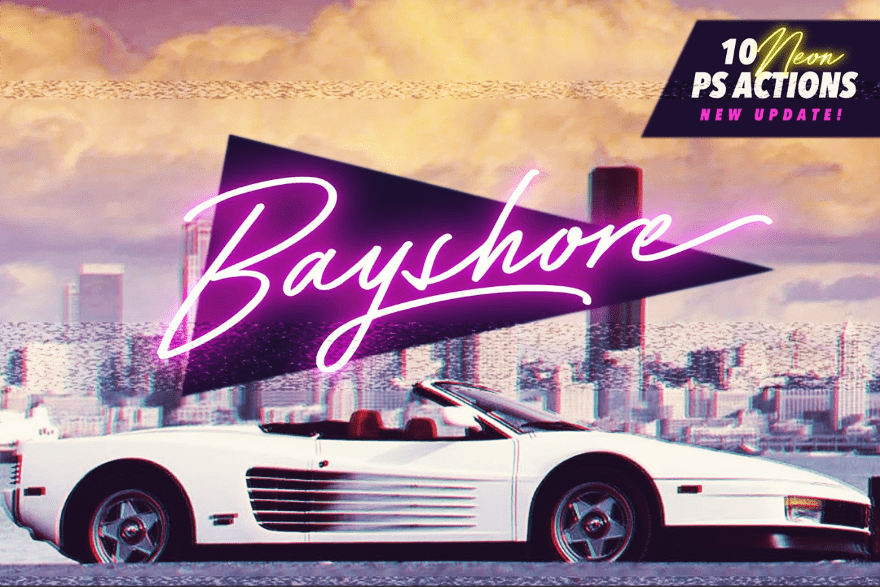
This font with its neon colors makes me want to go a few days without shaving and drive my Ferrari down the streets of Miami wearing my rad blazer with cool drums blasting. Itβs a hand-drawn font thatβs ideal for logos and products. It also includes a few Photoshop actions.
2. Outrunner
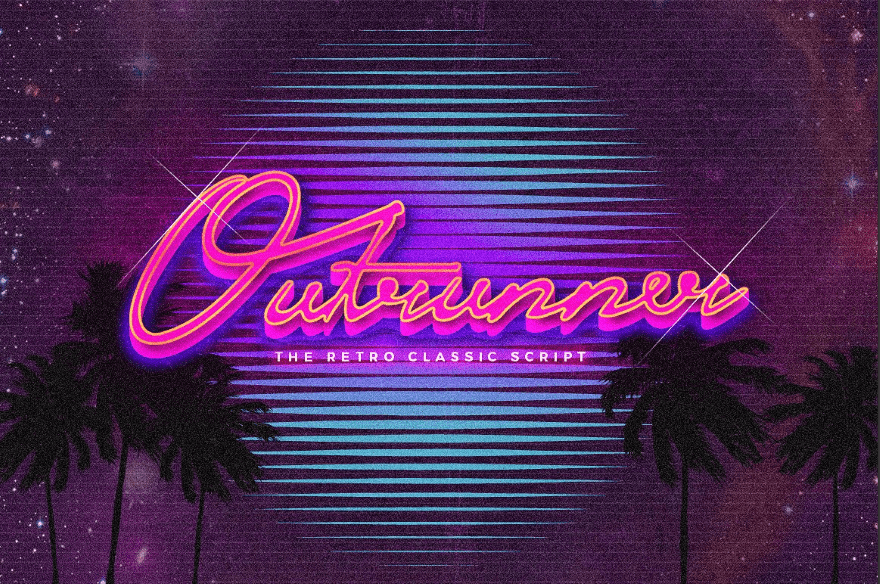
Another βdrive my Ferrariβ font that makes me want to race across the country with some awesome 80βs music, this one uses vivid colors that are perfect for logos, headers, branding, and more.
3. Lazer 84
Another font that reminds me of 80s gaming, movies, and music, this one uses some radical brush strokes to provide a font with and without color shading and shadows. Itβs great for headings, titles, posters, flyers, logos, and more.
4. Thunderstorm
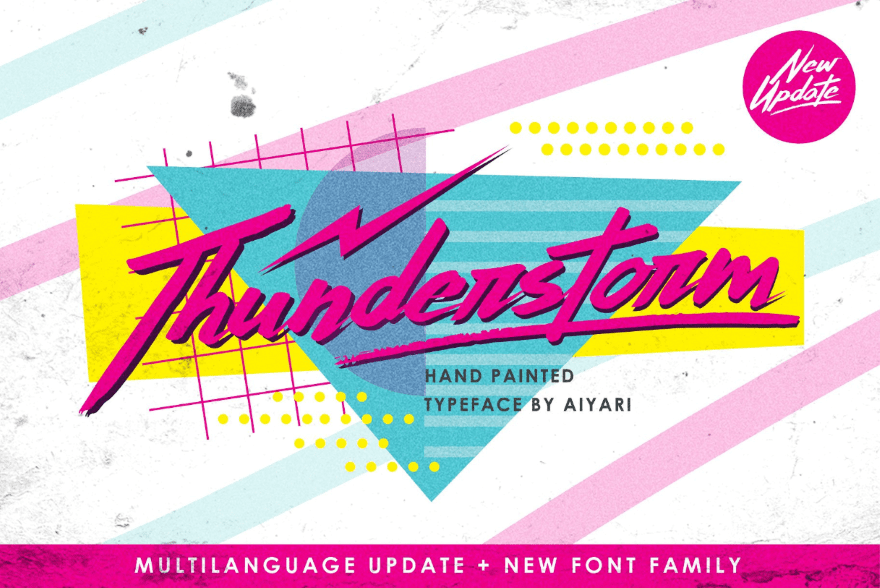
With a blast of hot pink and aqua, this font was hand painted and is perfect for any retro, disco, or even a grunge website that borders on the 90s. Itβs great for logos, books, clothing, headers, and more. It includes glyphs.
5. OTTANTA
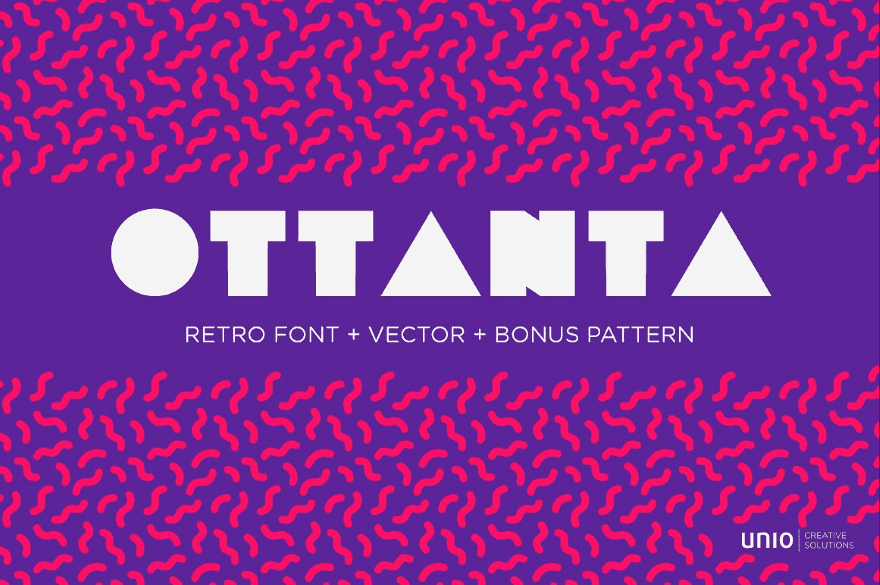
This font brings back memories of movies, magazines, and glitch commercials. Its thick and boxy look is perfect for logos, headers, banners, poster, and lots more.
6. Orlando
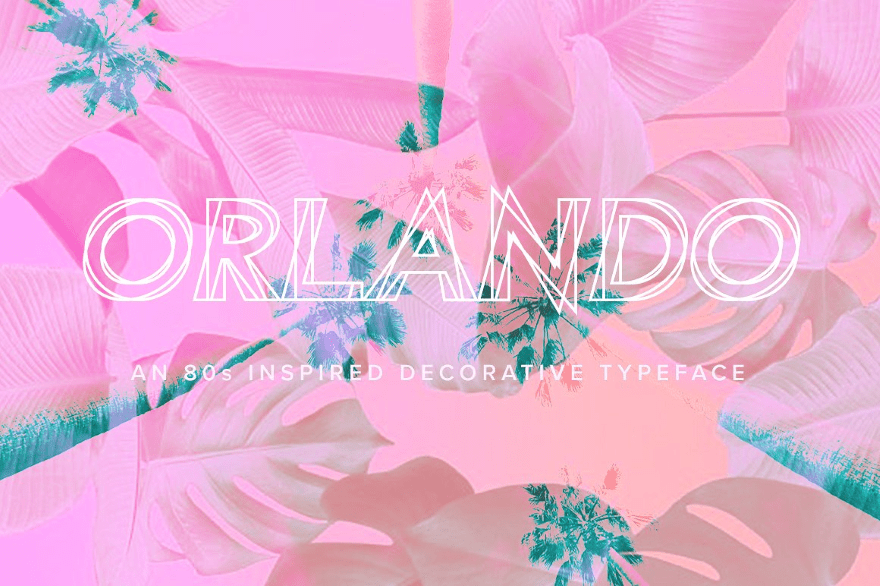
This retro font showcases some of that 80s layering that was so popular in commercials, posters, and the music industry. It also includes a set of filled-in fonts, making this set perfect for just about anything that needs rad fonts.
7. Graveblade
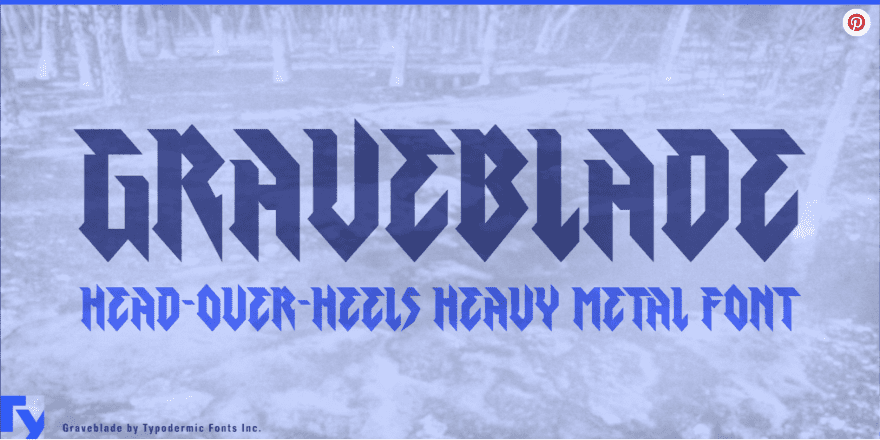
Relive the 80s heavy metal days with this font. With sharp points and angles and a style that canβt be mistaken, this is an excellent font for any heavy metal website. Now I have to crank up the distortion.
8. Copper
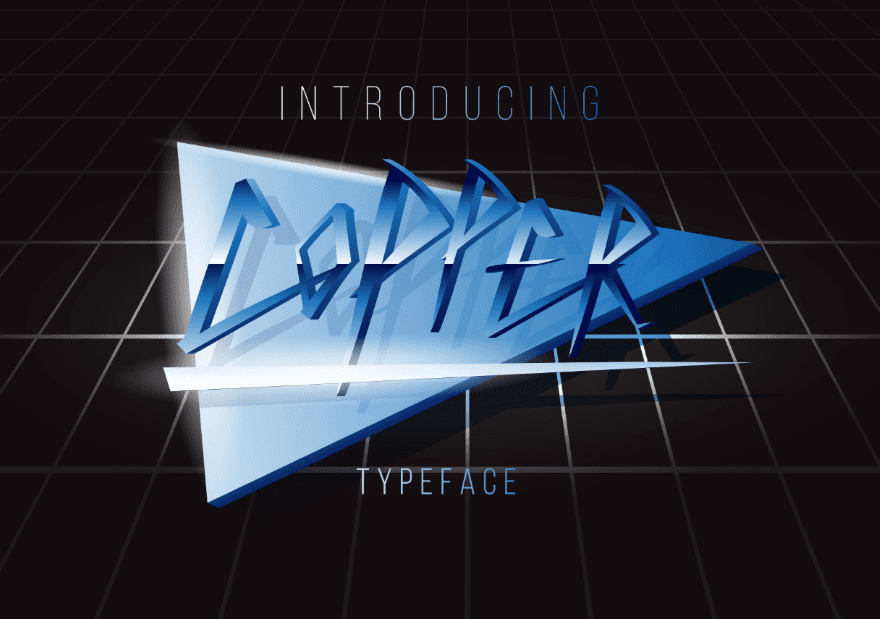
This font takes you to the movies. It has a simple design with just a few brush-strokes to keep the lines straight and itβs perfect for logos, magazines, headers, posters, bands, etc.
9. Hacker
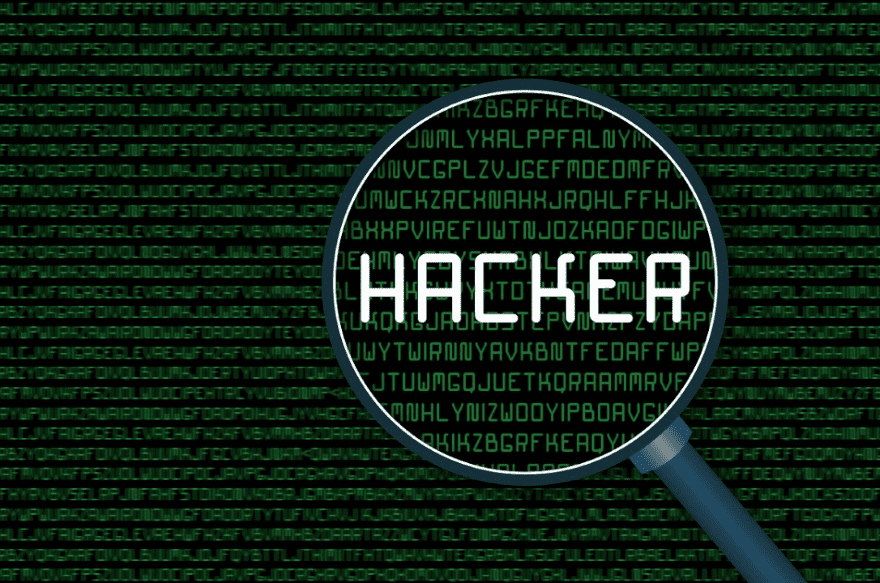
Hereβs another font that takes you back to the movies β this time to that fancy corporate computer running UNIX that was hiding all the corporate secrets. This fontβs great for any IT/IS needs including online stores, security, networking, or anything that includes older computer technology.
10. Ate Bit
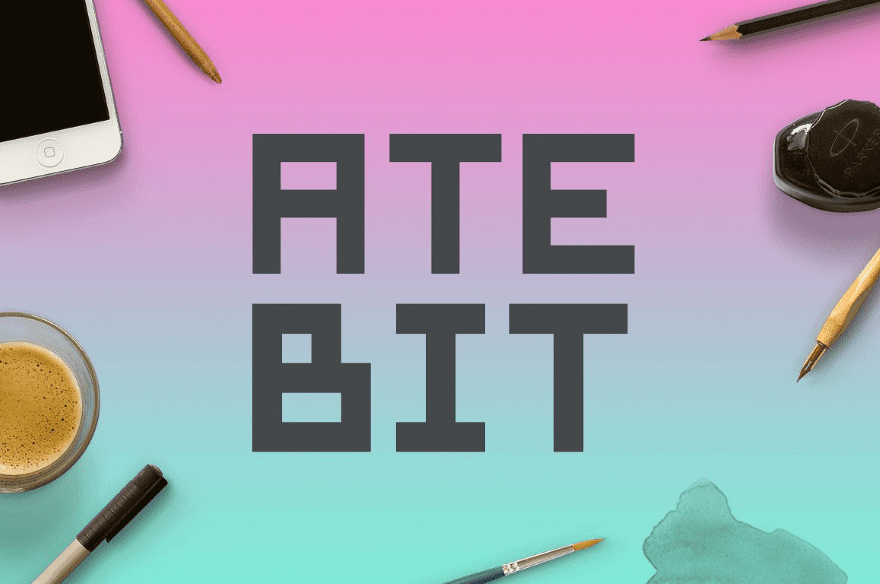
This font brings back the good old days of 8-bit gaming when game machines took quarters and you had to learn the pattern before the aliens attacked in the next wave. This fontβs great for anything to do with gaming when you want to stand out with that 80s feel.
11. Bitcraft
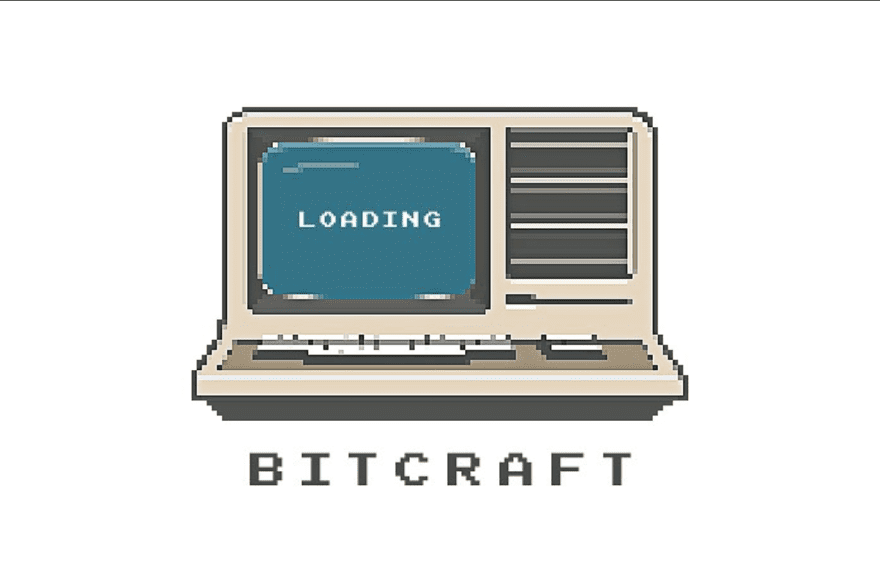
This one makes me want to pick up my C64 and play a round of Zork (Taste letter. ENTER. βIt tastes like a letterβ). This is an excellent font for any type of 8-bit illustration including icons, posters, etc.
12. Razor
Go back to take another drive down to the beaches in Miami with this laser-etched, multi-line font. Itβs an excellent choice for posters, logos, and more. It includes CSS to make your website shine.
13. Johnny Fever
Bringing back fond memories of 80s radio in Cincinnati, Johnny Fever is a unique block-style typeface thatβs great for titles, headers, logos, products, and more.
14. Uniwars
This one has a smooth 80s sci-fi look with 16 different styles. Itβs an outstretched typeface that was inspired by Japanese logotypes and is perfect for titles, headers, logos, posters, or anything that needs an atypical style.
15. Cyberglass JNL
This fontβs designed to help you win the robopocalypse, which is always handy for those times when robots come back from the future to terminate you. I personally hate it when that happens. It includes two styles and is great for anything sci-fi or computer-related.